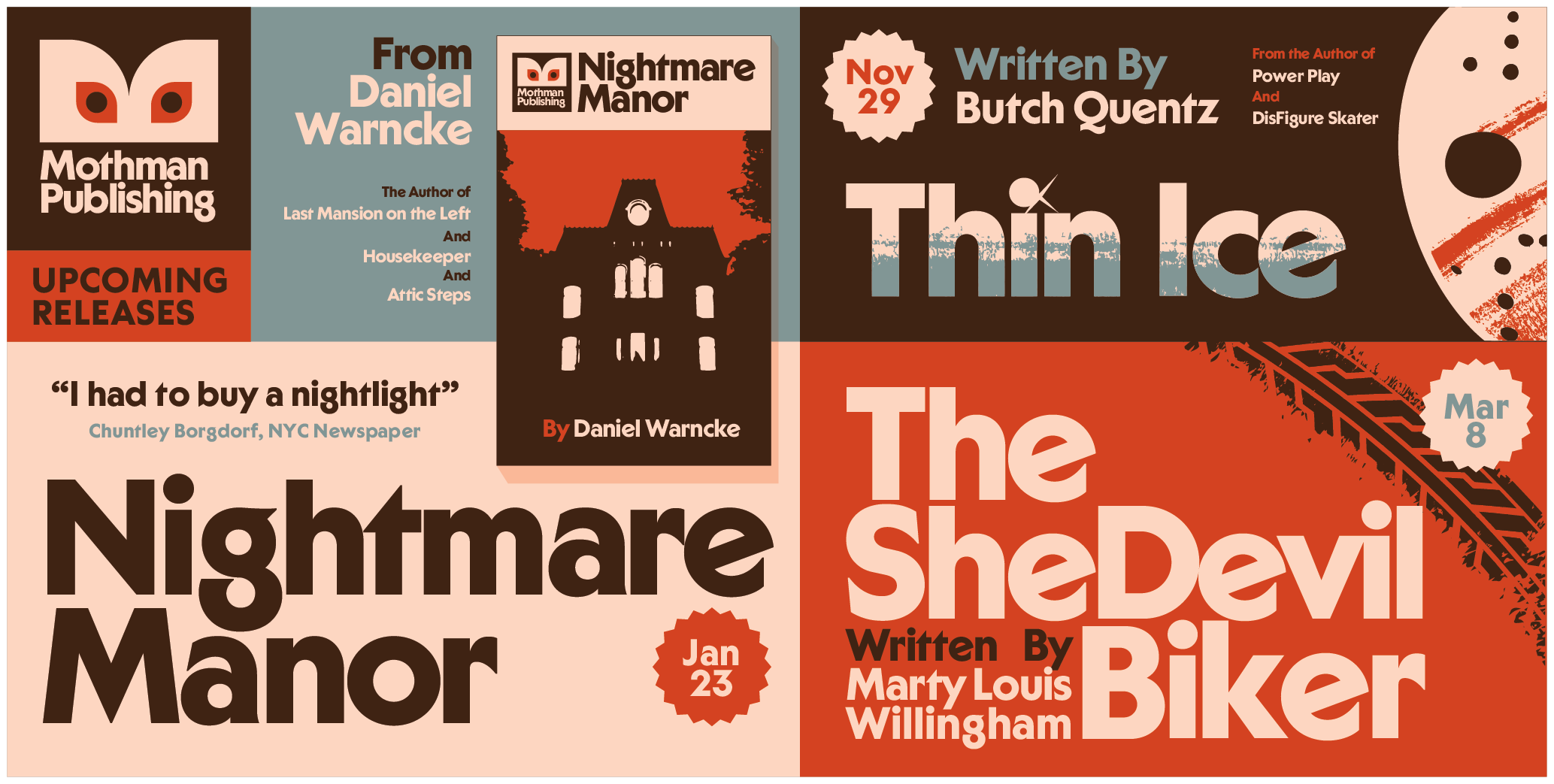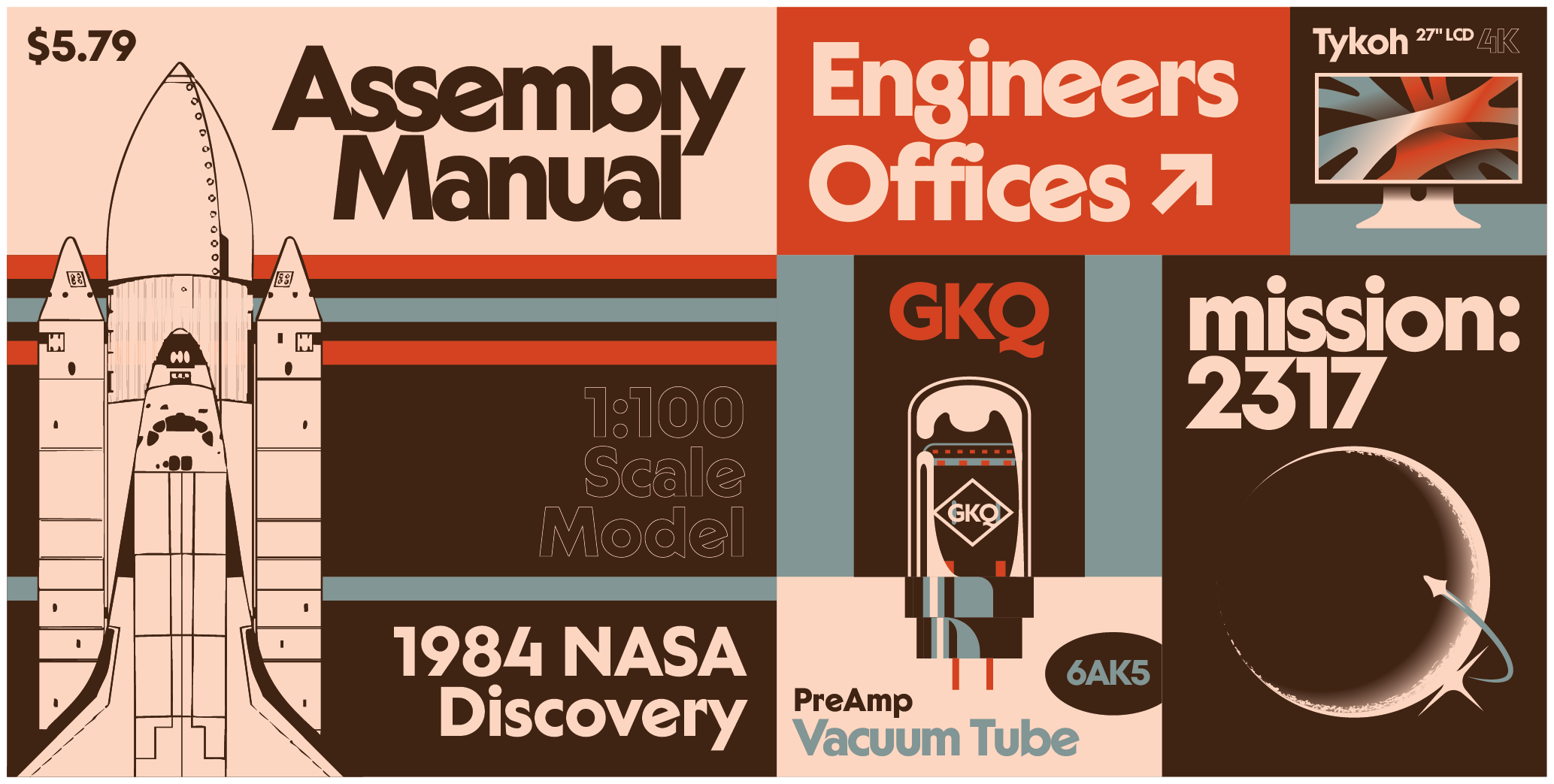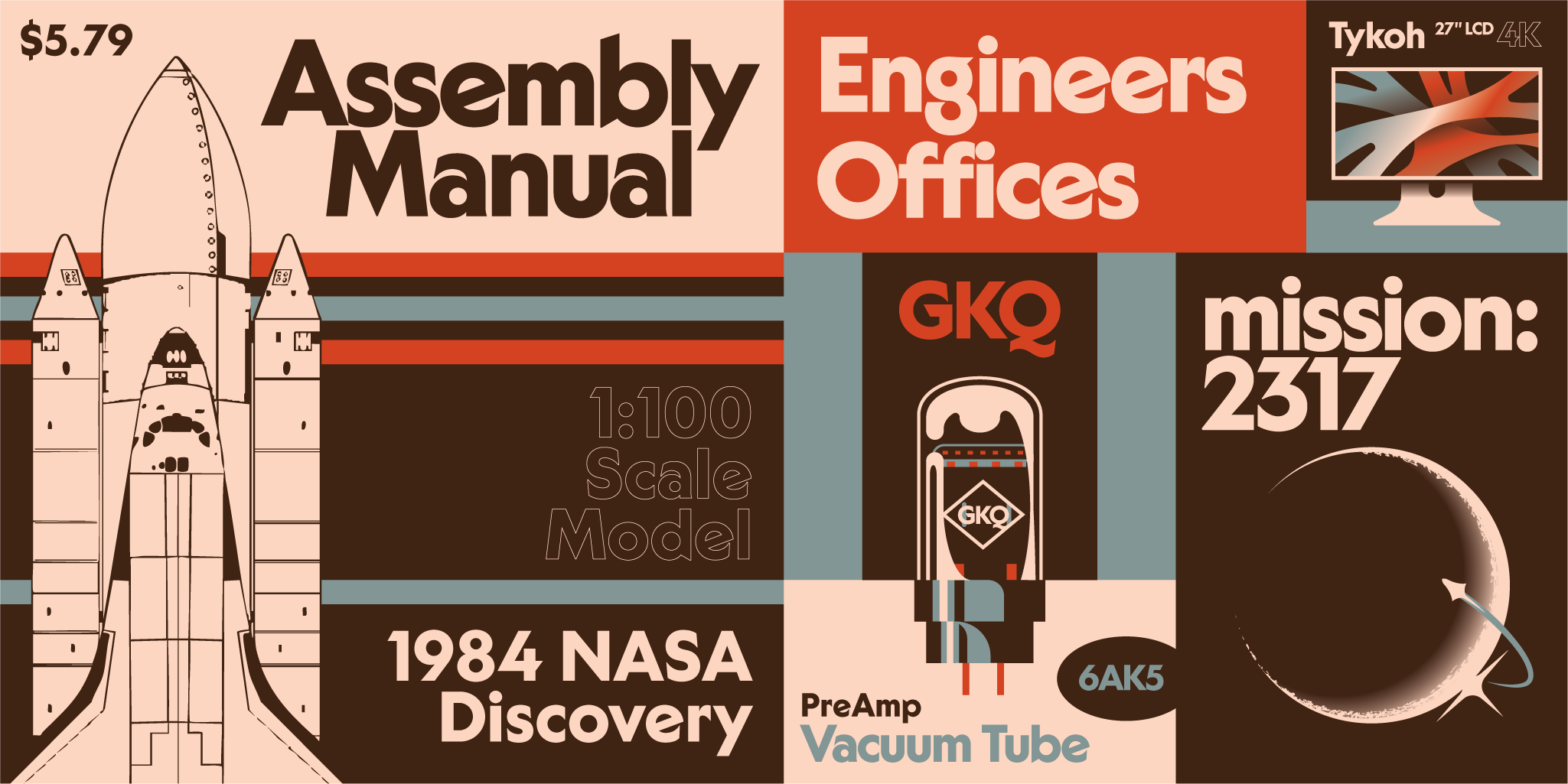
Silverberg
Sans
What if Futura went to a Halloween party in the late 70s dressed up as Dracula?
Originally inspired by the type in a 1980s book cover design, Silverberg combines the familiar geometric foundations in families like Futura with some of our own favorite eccentricities inspired by the typographic styles coming out of the '70s like ITC Serif Gothic, Cortez, and more...